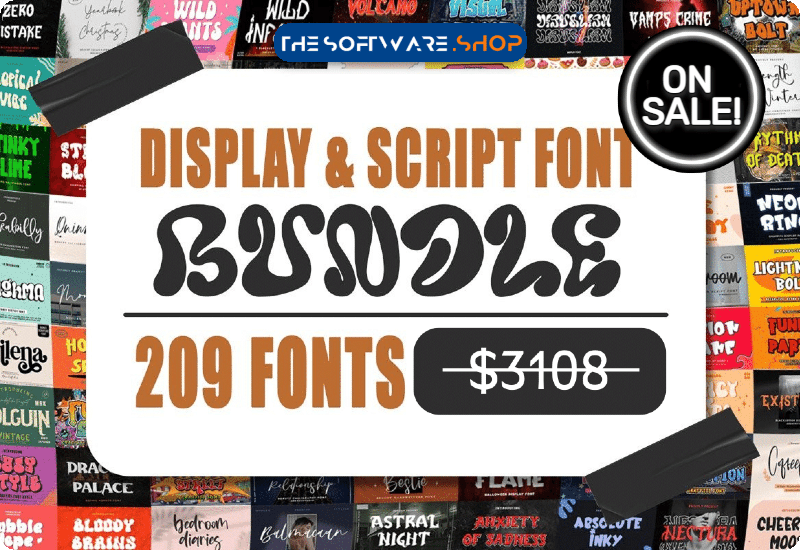
If you’re a designer, you know how important it is to have a great collection of fonts at your disposal. The Display & Script Font Bundle is a must-have for any designer looking to create stunning designs. With 209 unique fonts by Arendxstudio, this bundle will add a special touch to any creation. And the best part? It’s now available for free!
What is The Display & Script Font Bundle?
The Display & Script Font Bundle is a collection of 209 unique fonts created by Arendxstudio. This bundle features a variety of display and script fonts that are perfect for any design project. Whether you’re working on a logo, a poster, a book cover, or a t-shirt design, you’ll find the perfect font in this bundle.
- Mummy Sleep Polices Décoratives Police
- Sunny Evening Fuentes Display Fuente
- Gianella Breakfast Fuentes Caligráficas Fuente
- Creature Blackletter Font
- Stinky Slime Display Font
- Straykid Script & Handwritten Font
- Holland Display Font
- Fatal Darkness Blackletter Font
- Wild Inferno Blackletter Fontes Fonte
- Sonicfair Display Font
- Styling Zero Display Font
- Indieground Script & Handwritten Font
- Everytime Script & Handwritten Font
- Fire Wisdom Blackletter Font
- Nighttime Script & Handwritten Font
- Senopathi Script & Handwritten Font
- Cracking Display Font
- Sticky Blood Display Font
- Emigrate Display Font
- Tropical Wind Display Font
- Moonscape Script & Handwritten Font
- Smooth Cheese Display Font
- Incredible Holiday Script & Handwritten Font
- Zombie Brain Display Font
- Obligati Display Font
- Summer Vacation Fuentes Caligráficas Fuente
- Downtown Street Display Font
- Shibuya Zone Display Font
- Easter Lover Display Font
- Rockwish Script & Handwritten Font
- Zombie Zone Display Font
- Zero Mistake Fuentes Góticas Fuente
- High Jumps Display Font
- Hello Pumpkin Display Font
- Creditor Script & Handwritten Font
- Bedroom Diaries Script & Handwritten Font
- Maidstone Script & Handwritten Font
- Goldfield Skript-Schriftarten Schriftart
- Queenstown Signature Script & Handwritten Font
- Prentiss Script & Handwritten Font
- Recollect Script & Handwritten Font
- Stylebook Script & Handwritten Font
- Eternal Emperor Fuentes Góticas Fuente
- Evil Inside Display Font
- Cool Sensation Display Font
- Toploftily Script & Handwritten Font
- Inspiring Script & Handwritten Font
- Anxiety of Sadness Blackletter Font
- Homeroom Script & Handwritten Font
- Congregate Script & Handwritten Font
- Terus Fuentes Góticas Fuente
- Dracula Palace Afficher Polices Police
- Holguin Display Font
- Globetrot Fuentes Caligráficas Fuente
- Yearbook Christmas Script & Handwritten Font
- Stranger Through Display Font
- Brillo Solar Script & Handwritten Font
- Matsuyama Script & Handwritten Font
- Strength Winter Script & Handwritten Font
- Matchbook Script & Handwritten Font
- Higher Dreams Skript-Schriftarten Schriftart
- Impassive Script & Handwritten Font
- Biohazard Blackletter Font
- Seclude Gebrochene Schriftarten Schriftart
- Tropical Vibe Display Font
- Lightning Bolt Display Font
- Hearing Fuentes Sans Serif Fuente
- Rythm of Death Blackletter Font
- Volcano Power Blackletter Font
- Blackamoor Script & Handwritten Font
- Anasthasia Script & Handwritten Font
- Flying Soul Display Font
- Existence Blackletter Font
- Quinnleigh Script & Handwritten Font
- Paradise Sunshine Script & Handwritten Font
- Spiderwick Decorative Font
- Shootout Script & Handwritten Font
When using The Display & Script Font Bundle, it’s important to keep some design tips in mind. First, make sure the font you choose fits the tone and style of your project. For example, if you’re creating a design for a children’s book, you might want to choose a playful and whimsical font.
Second, don’t be afraid to experiment with different fonts. Mix and match different fonts to create a unique and personalized look. You can also experiment with different font sizes, colors, and effects to create a truly standout design.